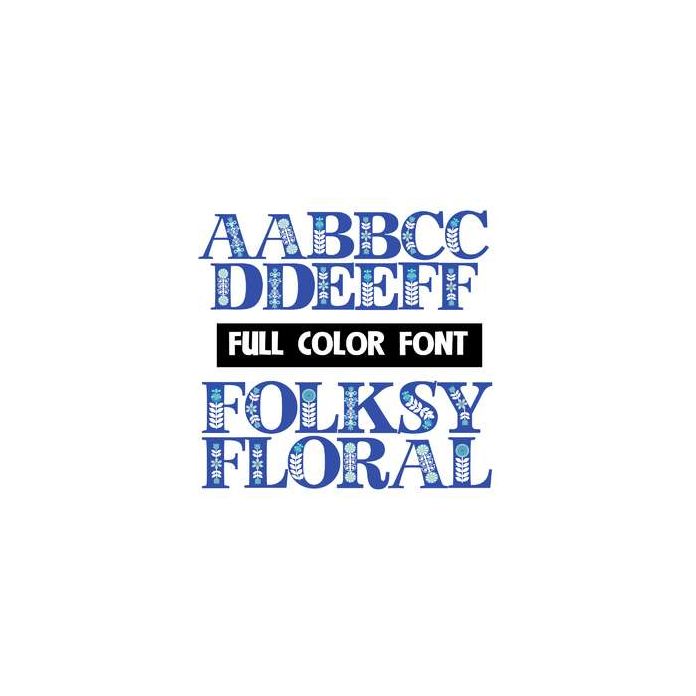
This full-color font is a beautiful blue font with blue, folk art florals throughout. Both cases are different. This font works best for titles, displays, posters and more. Please note color fonts will show as black in non compatible programs. This font type is compatible with Silhouette Studio.